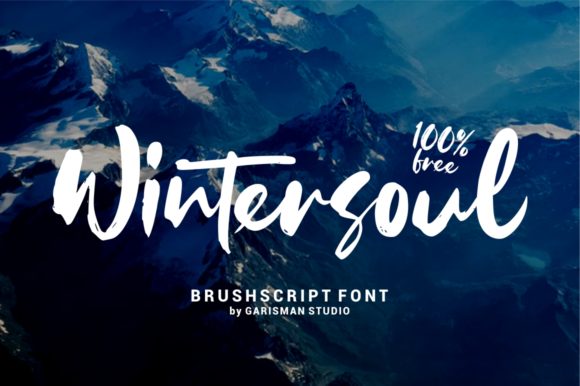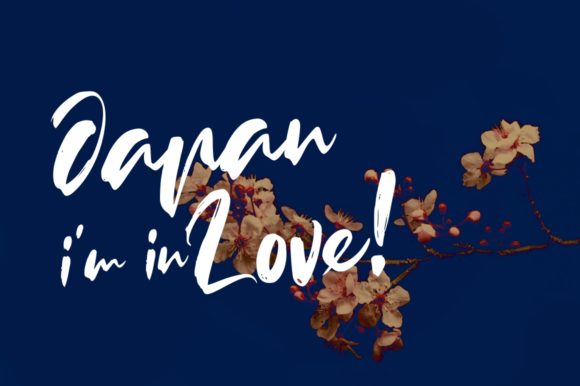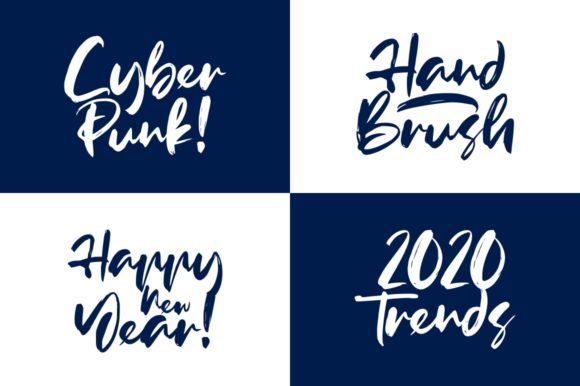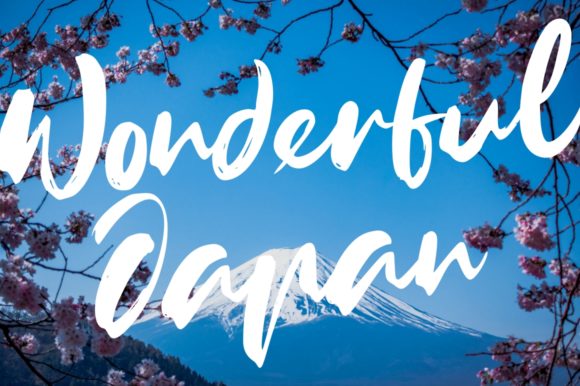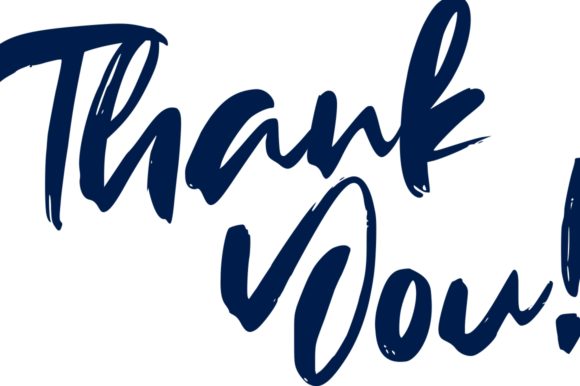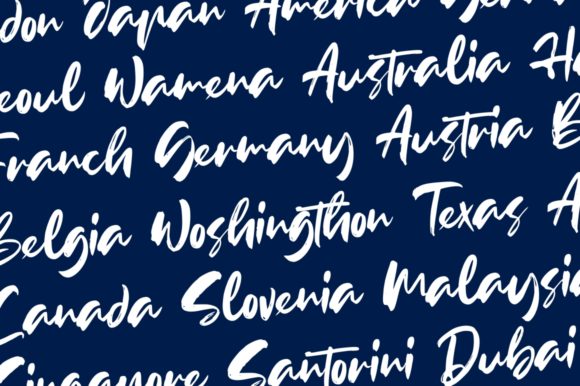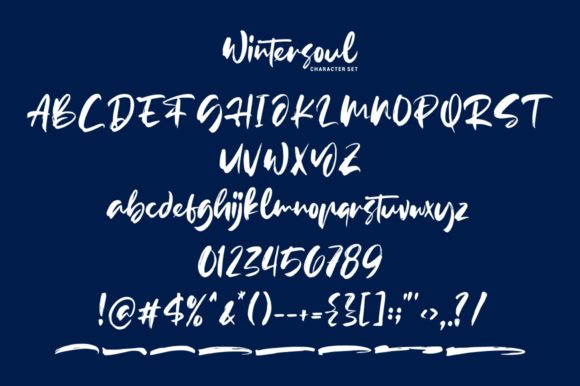
The Wintersoul handwritten font is a great choice for your crafting projects. This beautiful font has a unique brush style that will take your projects to the next level!